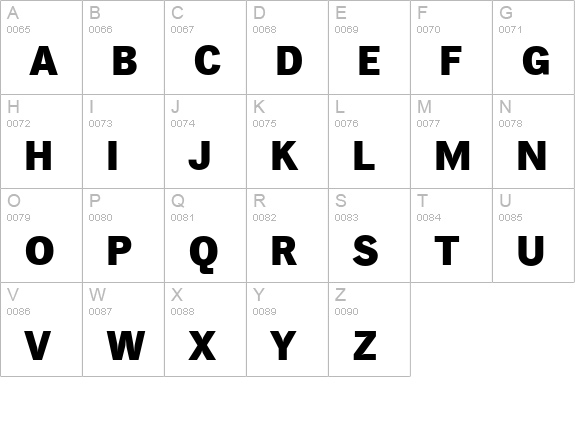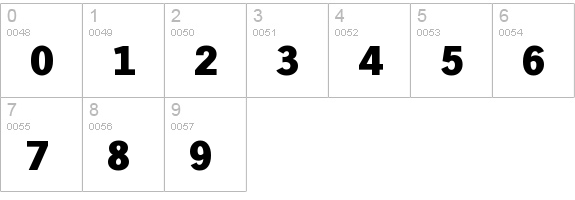
HamburgSerial-Heavy-Regular is a heavy, high-impact variant in the HamburgSerial typeface family \xE2\x80\x94 well suited to high-impact headlines, posters, and display advertising.
HamburgSerial-Heavy-Regular is a bold and striking font that exudes a sense of strength and modernity. With its clean lines and robust appearance, this typeface is perfect for making a powerful statement in any design project. Whether you are creating posters, branding materials, or website headers, HamburgSerial-Heavy-Regular will make your text stand out with its strong presence. Best of all, this impressive font is available for free download at FontsMarket.com. That's right - you can easily access HamburgSerial-Heavy-Regular and enhance your designs without any cost. Don't miss out on the opportunity to add this versatile and impactful font to your collection today!